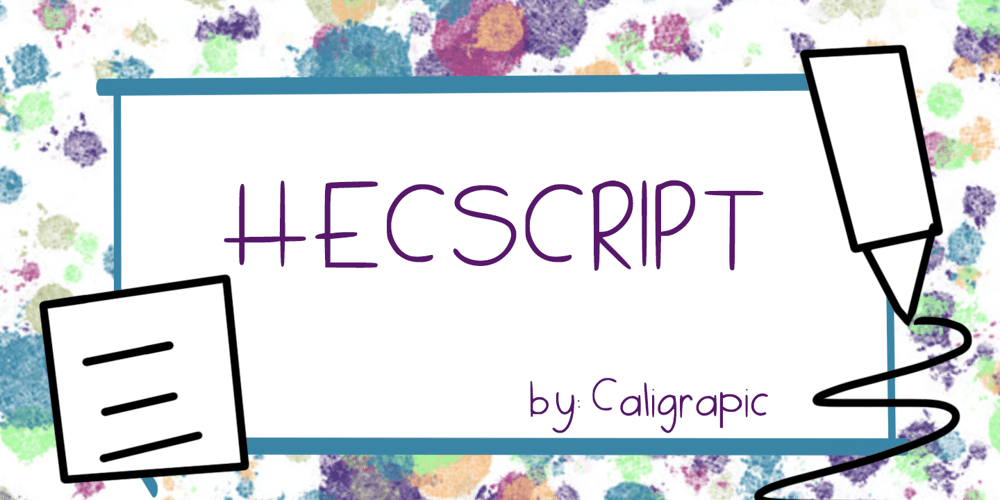
Hecscript
Hecscript font
Hecscript Font Family was designed by Hector Rivas and published by Hecttorpaiz. Hecscript contains 1 styles and family package options. This is an original typography to use in your homeworks, arts and more; created to inspire your documents or website.Buy it! with a special price, and you will support me and i would create more designs to share with you.